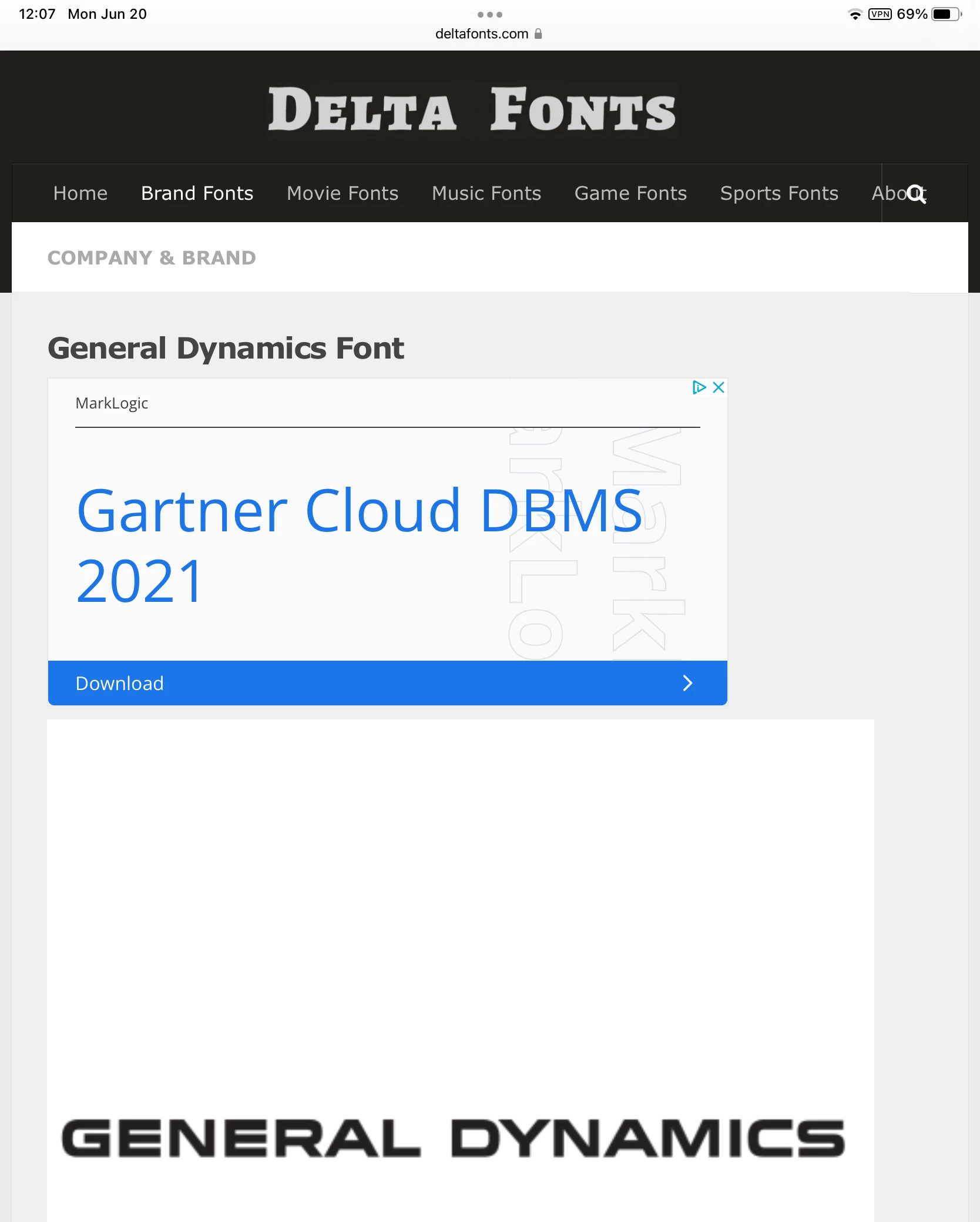
Matching a font from a logo
I'm trying to match a font from a logo. I've tried using the "Match Font" tool in the Type dropdown, but the fonts it give me are not close matches at all. I need to be able to duplicate this font, either by finding the right font (I don't think this is possible), or by recreating the font. I'm open to suggestions on how to recreate the font (even if it'll take a long time/is difficult), to be able to type different words in the same style. I only need to reproduce the top "General Dynamics" font, and not the font below it.
Attached below is my logo, any help or guidance is appreciated!
According to this site, the font used for the General Dynamics logo is GD Bold, which is a geometric sans serif font designed by Joe Finocchiaro. Joe also has a site where he says he designed it.